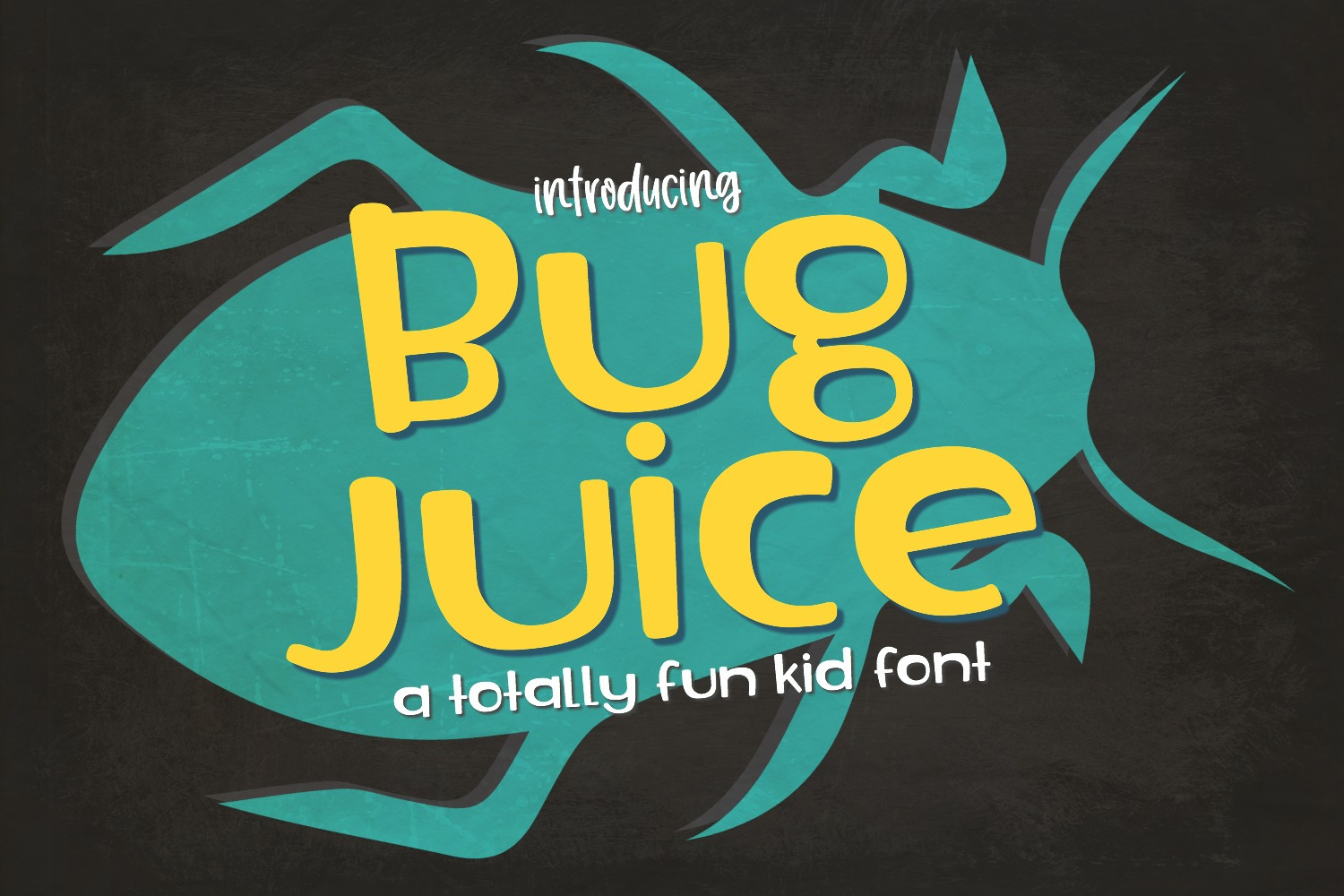
New! Bug Juice Font
Bug Juice is a fun childlike font that is perfect for so many design projects! It comes in true type and open type formats and supports Basic Latin and most European languages.